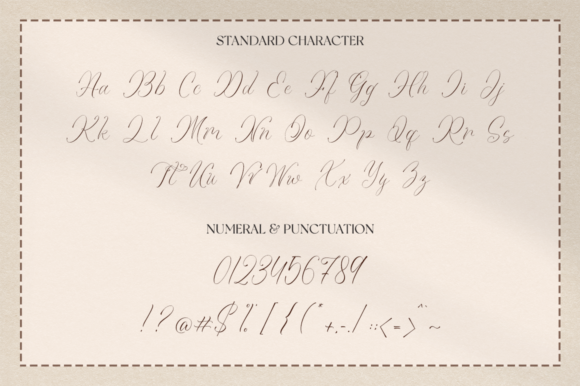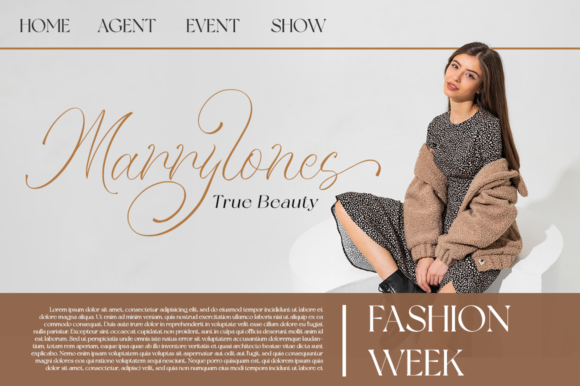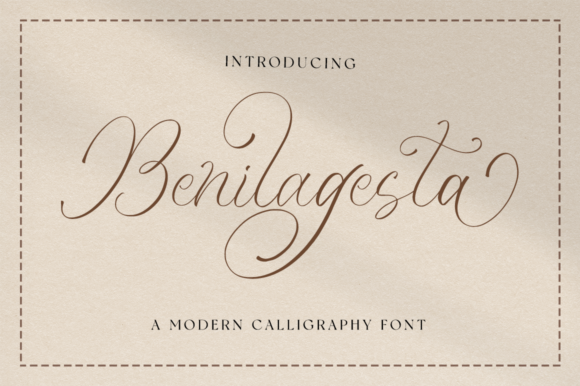
Benilagesta Font
Designer: NissaStudio
Benilagesta Font is a beautiful and delicate handwritten font with a unique feel and a stunning impact. It will add a luxury spark to any design project that you wish to create! This font is PUA encoded which means you can access all of the amazing glyphs and ligatures with ease!